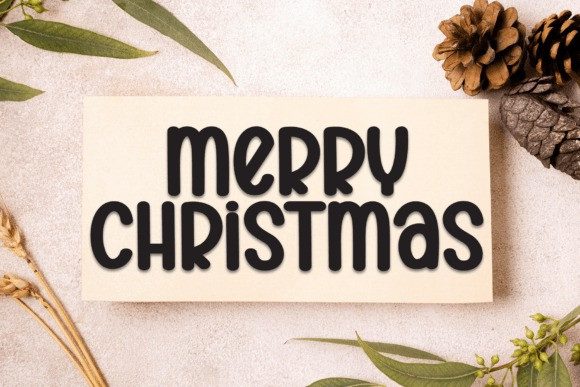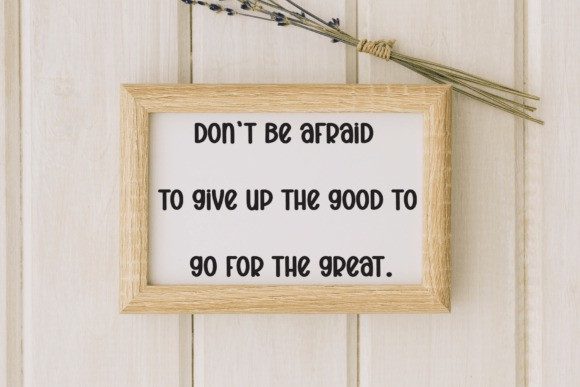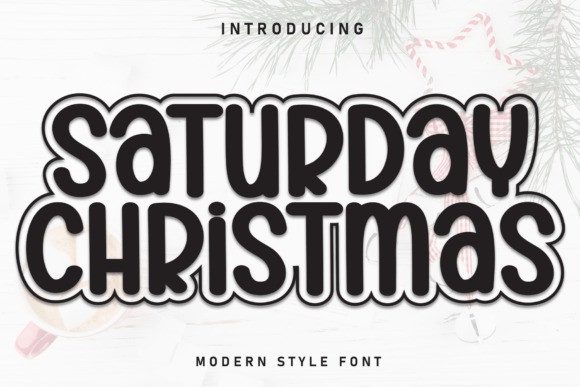
Saturday Christmas Font
Saturday Christmas Font is a festive, handwritten font with a warm, joyful feel. Its playful, casual style makes it perfect for holiday greetings, cards, and decorations, capturing the spirit of Christmas in a fun and friendly way.